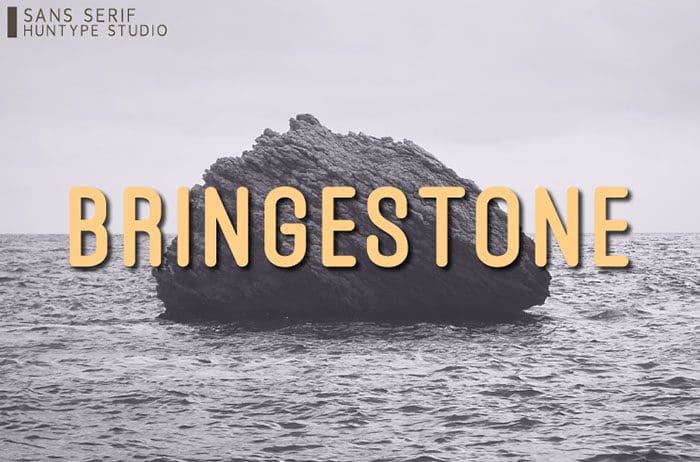
Bringestone is a smooth sans serif font. It will complement any design need perfectly with its perfectly balanced mix of smooth and sharp! Thanks to Mas Anis for sharing this awesome font! Take a look on this portfolio for more of his stunning fonts.
Designed By : Mas Anis